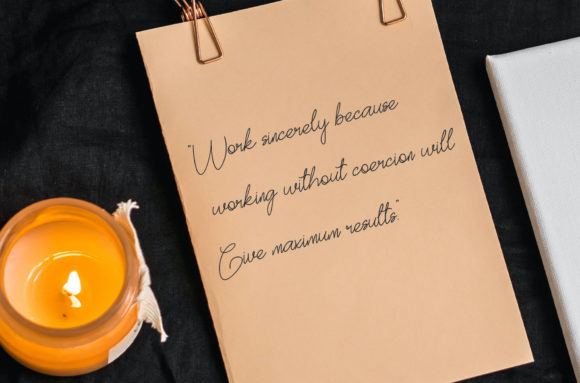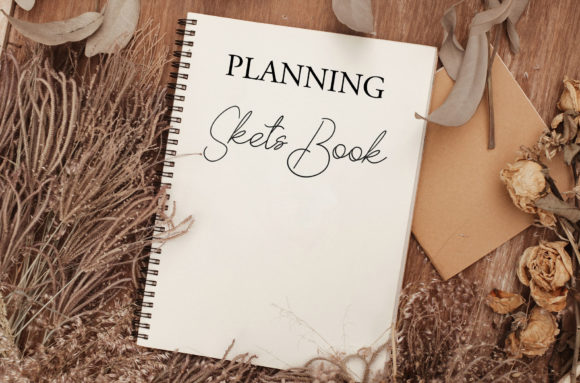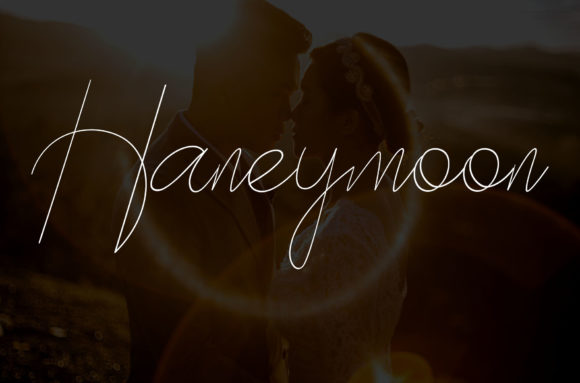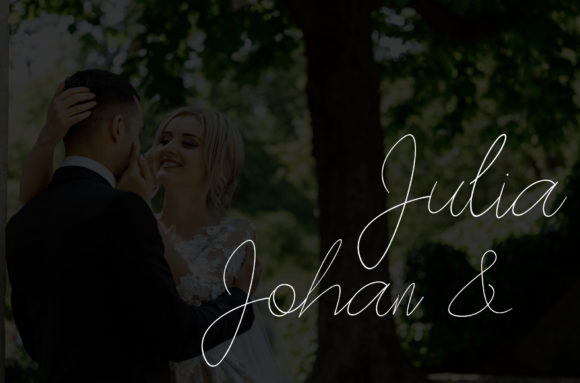
Introduction to Magdallena Font Font
Fonts play a crucial role in design, and the Magdallena Font font is a typeface that brings both character and versatility to any project. Whether you’re working on a branding project, a website, or a print design, the Magdallena Font font offers a unique style that can elevate your work.
Magdallena is modern and classy calligraphy font, that comes with beautiful ligatures and lovely alternates.
Magdallena has a very beautiful stroke and it will suit various wedding invitations, fashion cards, and more This font is PUA encoded which means you can access all of the glyphs and swashes with ease.
Key Features of Magdallena Font Font
Why Choose Magdallena Font Font?
The Magdallena Font font is more than just a typeface – it’s a design tool that helps you communicate your message with style and clarity. Its unique character set and versatile design make it suitable for a wide range of applications, from elegant invitations to bold headlines.
With its carefully crafted letterforms and balanced proportions, the Magdallena Font font ensures readability and visual appeal across all mediums.
What makes Magdallena Font font special?
The Magdallena Font font stands out with its unique design, exceptional readability, and versatility across various design applications.